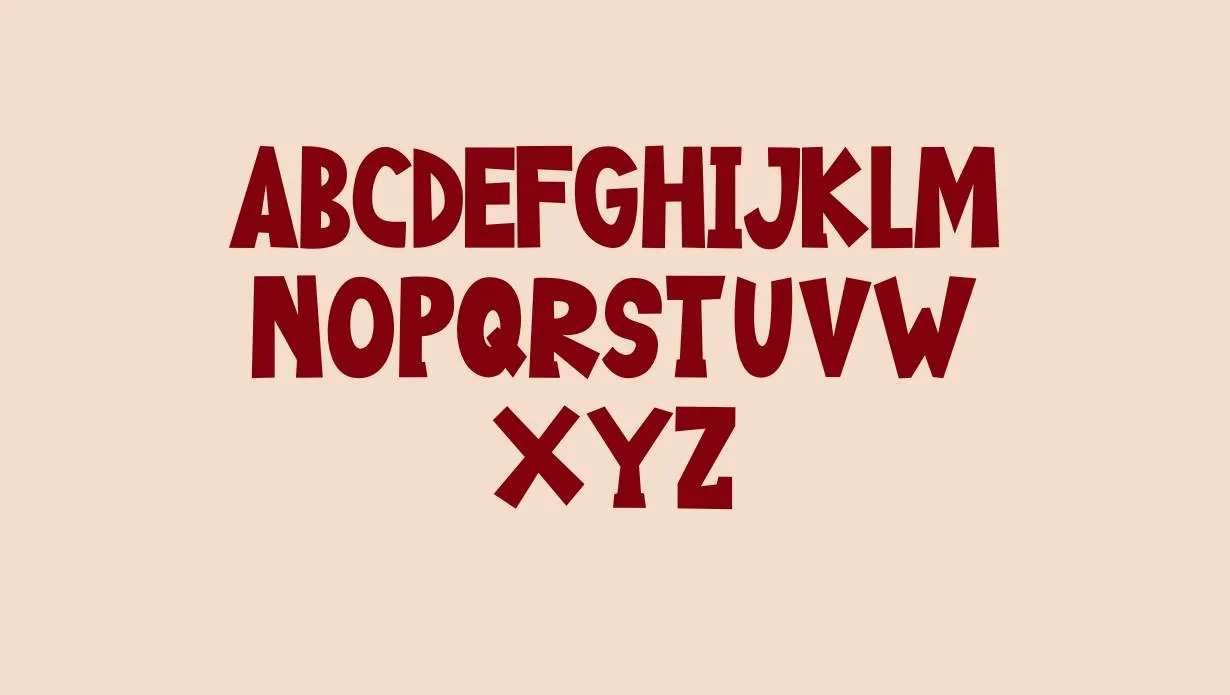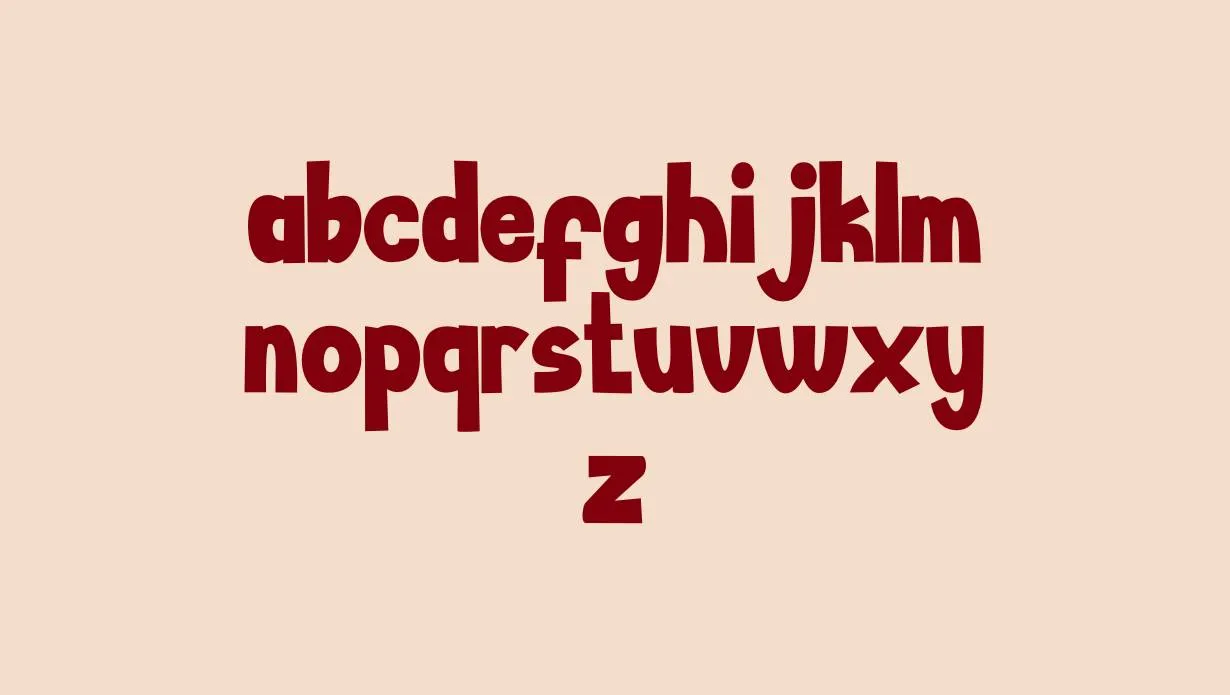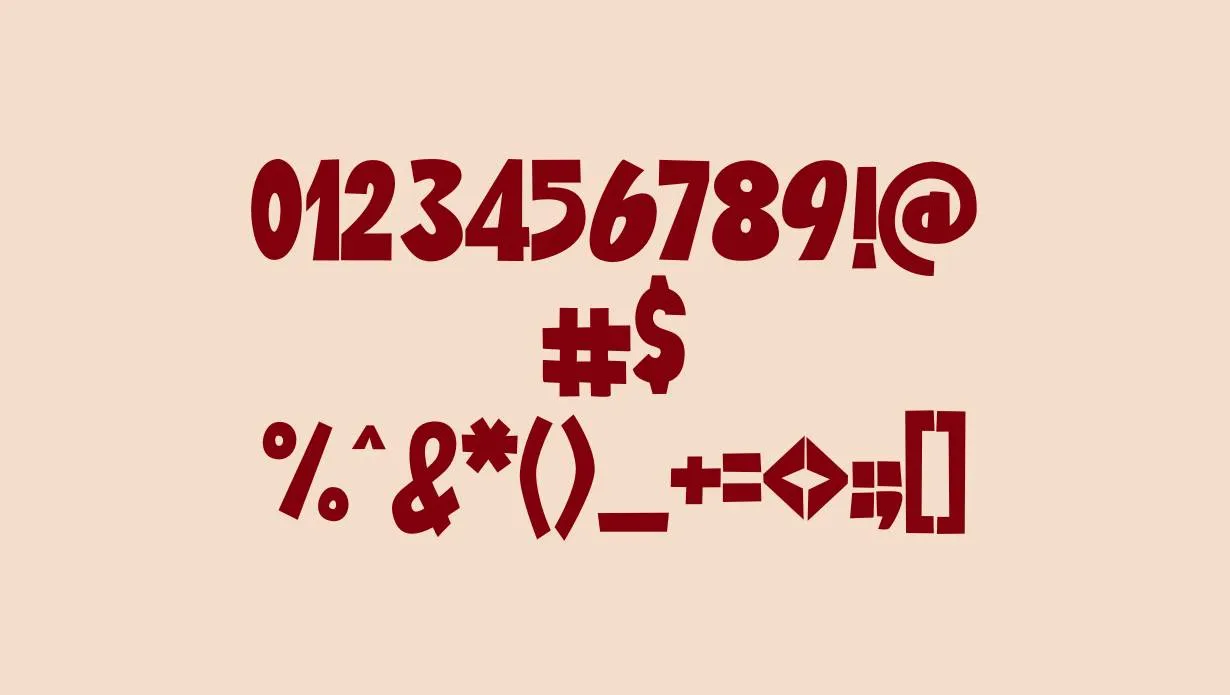
Happy Food Font Free Download
Happy Food Font is an astonishing typeface with unique features. This typeface comes from the fancy font family. The bold and elegant characters of this remarkable font are designed by Letterena Studios foundry.
This splendid typeface is very much identical to candice font it is perfect to use as an alternative. You can apply this appealing typeface for prominent headings, titles, and subheadings.